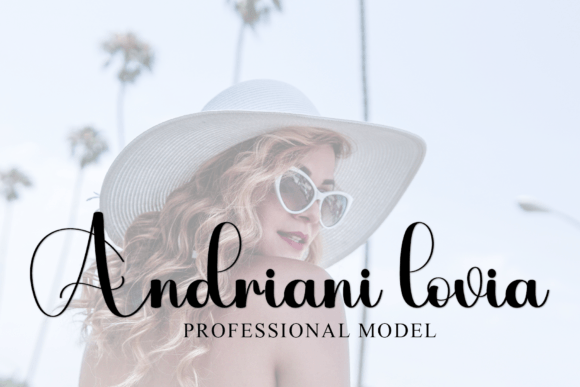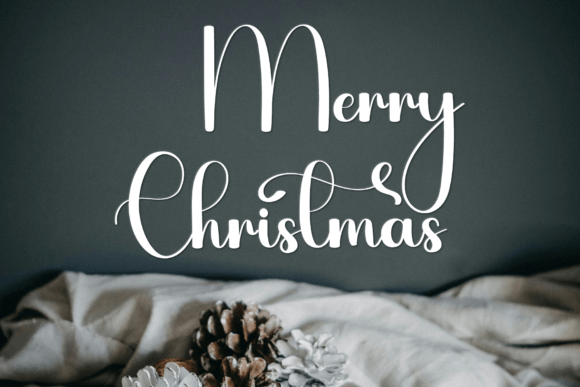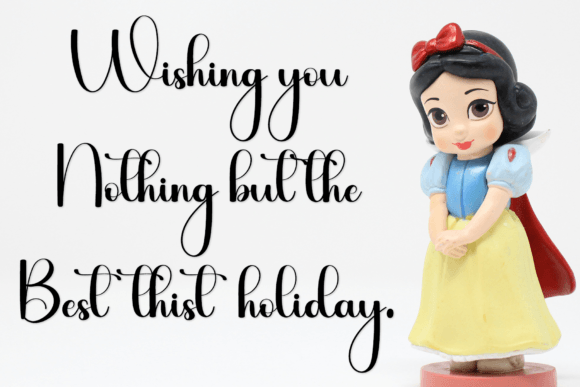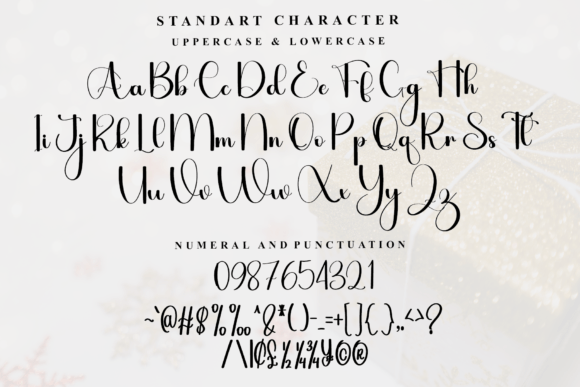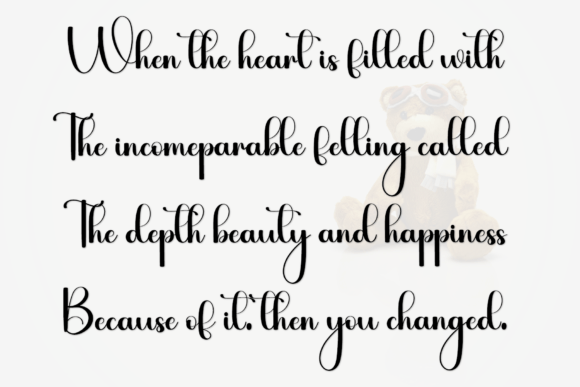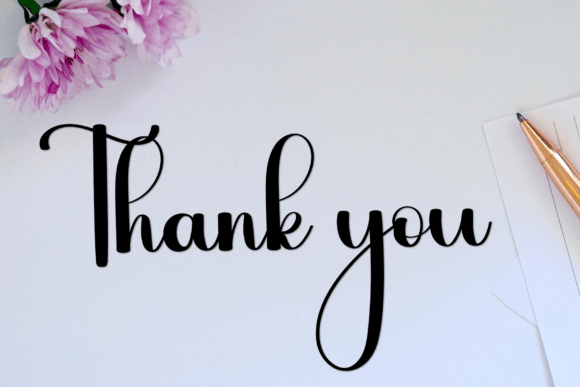
Introducing Chilly Christmas Font: The Ultimate Holiday Typeface
The holiday season is upon us, and what better way to get into the spirit than with a festive and fun font? Look no further than Chilly Christmas Font, a delightful typeface that’s sure to add a touch of charm to your designs. In this article, we’ll dive into the world of Chilly Christmas Font, exploring its unique features, uses, and benefits for designers and crafters alike.
A Festive and Happy Typeface
Chilly Christmas Font is a carefully crafted typeface that embodies the joy and cheer of the holiday season. Its decorative elements and unique flair make it the perfect addition to any holiday-themed project. Whether you’re designing greeting cards, gift labels, or festive posters, this font is sure to bring a smile to your face and a touch of magic to your words.
So, what can you use Chilly Christmas Font for? The possibilities are endless! Here are a few ideas to get you started:
- Greeting cards: Create personalized and festive greeting cards for friends and family.
- Gift labels: Add a touch of elegance and whimsy to your gift labels.
- Holiday-themed projects: Use Chilly Christmas Font to create festive posters, flyers, and social media graphics.
- Crafting projects: Add a personal touch to your crafting projects, such as scrapbooking, journaling, and papercrafting.
One of the best things about Chilly Christmas Font is that it’s PUA (Private Use Area) coded. This means that you can access all the amazing glyphs and ligatures easily, without having to navigate complicated character maps or software. With PUA coding, you can simply click and insert the characters you need, making it easy to add a touch of festive flair to your designs.
What is PUA Coding?
For those who may not be familiar, PUA coding refers to a specific area of the Unicode character map that’s reserved for private use. This allows font designers to include additional characters, such as glyphs and ligatures, that can be accessed easily by users. In the case of Chilly Christmas Font, PUA coding means that you can access a wide range of festive characters, from snowflakes and holly leaves to Christmas trees and stockings.
So, what are the benefits of using Chilly Christmas Font for designers and crafters? Here are a few:
- Easy to use: With PUA coding, you can access all the characters you need easily.
- F festive and fun: Chilly Christmas Font adds a touch of festive cheer to any design.
- Versatile: Use it for a wide range of holiday-themed projects, from greeting cards to crafting projects.
- Unique: Stand out from the crowd with a font that’s truly one-of-a-kind.
Tips for Using Chilly Christmas Font
Here are a few tips for getting the most out of Chilly Christmas Font:
- Experiment with different sizes and colors to find the perfect look for your design.
- Combine Chilly Christmas Font with other fonts for a unique and eye-catching look.
- Use the glyphs and ligatures to add a touch of festive flair to your design.